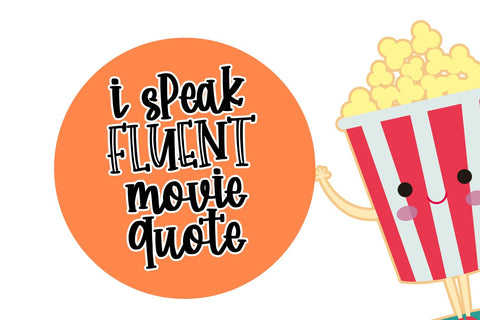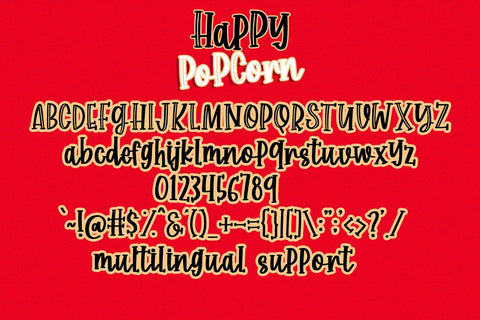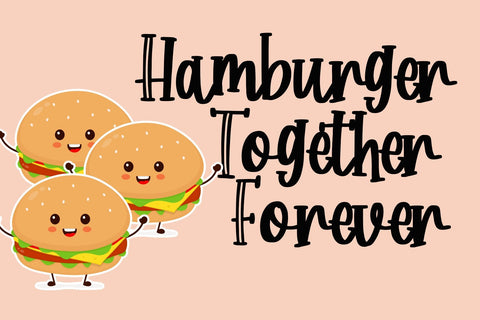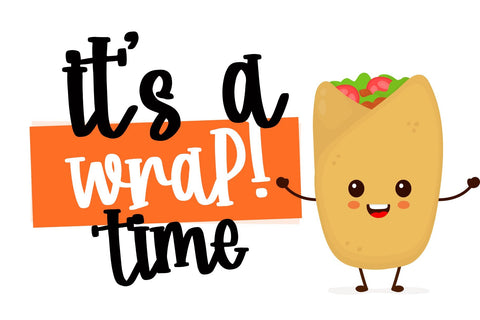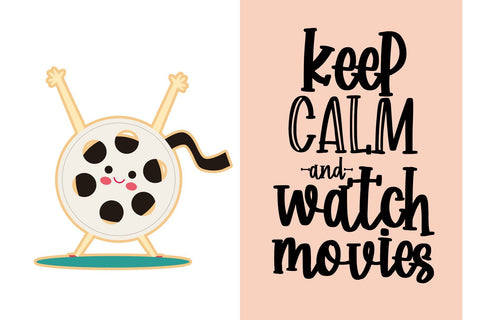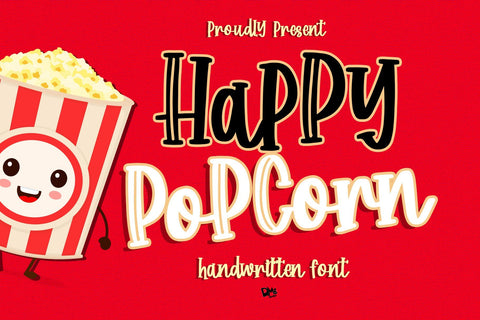
Happy Popcorn - Handwritten Font
Be Happy with Happy Popcorn!
Happy Popcorn is quirky, yet fun handwritten font! Great choice for any design, craft, quotes and much more!
- Numeric
- Symbols